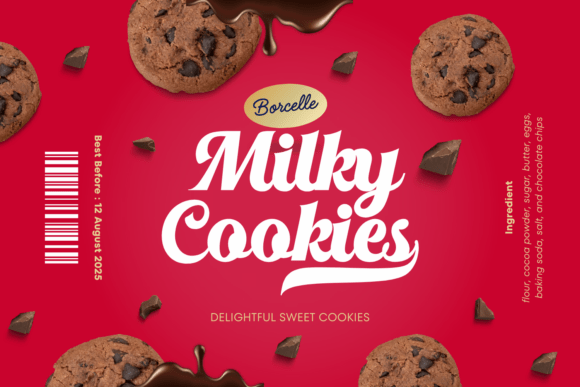
Unleash Bold Strength with Modern Calligraphy: Introducing Arakans Font
In the world of branding and design, making a statement is crucial. Your brand’s identity is often the first impression you make on potential customers, and it’s essential to get it right. That’s where Arakans Font comes in – a bold calligraphy font designed to transform your brand’s identity with the perfect blend of artistry and attitude.
What is Arakans Font?
Arakans Font is a bold calligraphy font that exudes confidence and personality. It’s designed for brands that demand attention and want to make a lasting impression. With its authentic bold modern calligraphy style, every stroke speaks with fluid motion and character.
Key Features of Arakans Font
- Authentic Bold Modern Calligraphy Style: Every stroke exudes personality and fluid motion, giving your brand a unique and distinctive voice.
- Bold & Expressive: Perfect for logos, branding, packaging, and social media, Arakans Font is designed to make a statement and grab attention.
- Clean Brush Texture: A raw, organic feel that adds character and uniqueness to your brand’s identity, setting it apart from the competition.
Benefits of Using Arakans Font
So, why choose Arakans Font for your brand’s identity? Here are just a few benefits:
- Stand out from the competition: With its bold and expressive design, Arakans Font is sure to grab attention and set your brand apart from the rest.
- Create a lasting impression: Arakans Font is designed to make a statement, and with its authentic bold modern calligraphy style, it’s sure to leave a lasting impression on your customers.
- Add character and uniqueness: The clean brush texture of Arakans Font adds a raw, organic feel to your brand’s identity, giving it a unique and distinctive voice.
How to Use Arakans Font
Using Arakans Font is easy! Here are a few ways you can incorporate it into your brand’s identity:
- Logos and branding: Arakans Font is perfect for creating bold and eye-catching logos that make a statement.
- Packaging: Add a touch of personality to your packaging with Arakans Font, making it stand out on store shelves.
- Social media: Use Arakans Font to create bold and expressive social media posts that grab attention and drive engagement.
Why Choose Arakans Font?
So, why choose Arakans Font over other calligraphy fonts? Here are a few reasons:
- Unique and distinctive: Arakans Font has a unique and distinctive voice that sets it apart from other calligraphy fonts.
- High-quality design: Arakans Font is designed with high-quality and attention to detail, ensuring that it looks great in any context.
- Easy to use: Arakans Font is easy to use and can be incorporated into your brand’s identity in a variety of ways.
In conclusion, Arakans Font is the perfect choice for brands that demand attention and want to make a lasting impression. With its authentic bold modern calligraphy style, bold and expressive design, and clean brush texture, it’s sure to transform your brand’s identity and help you stand out from the competition.